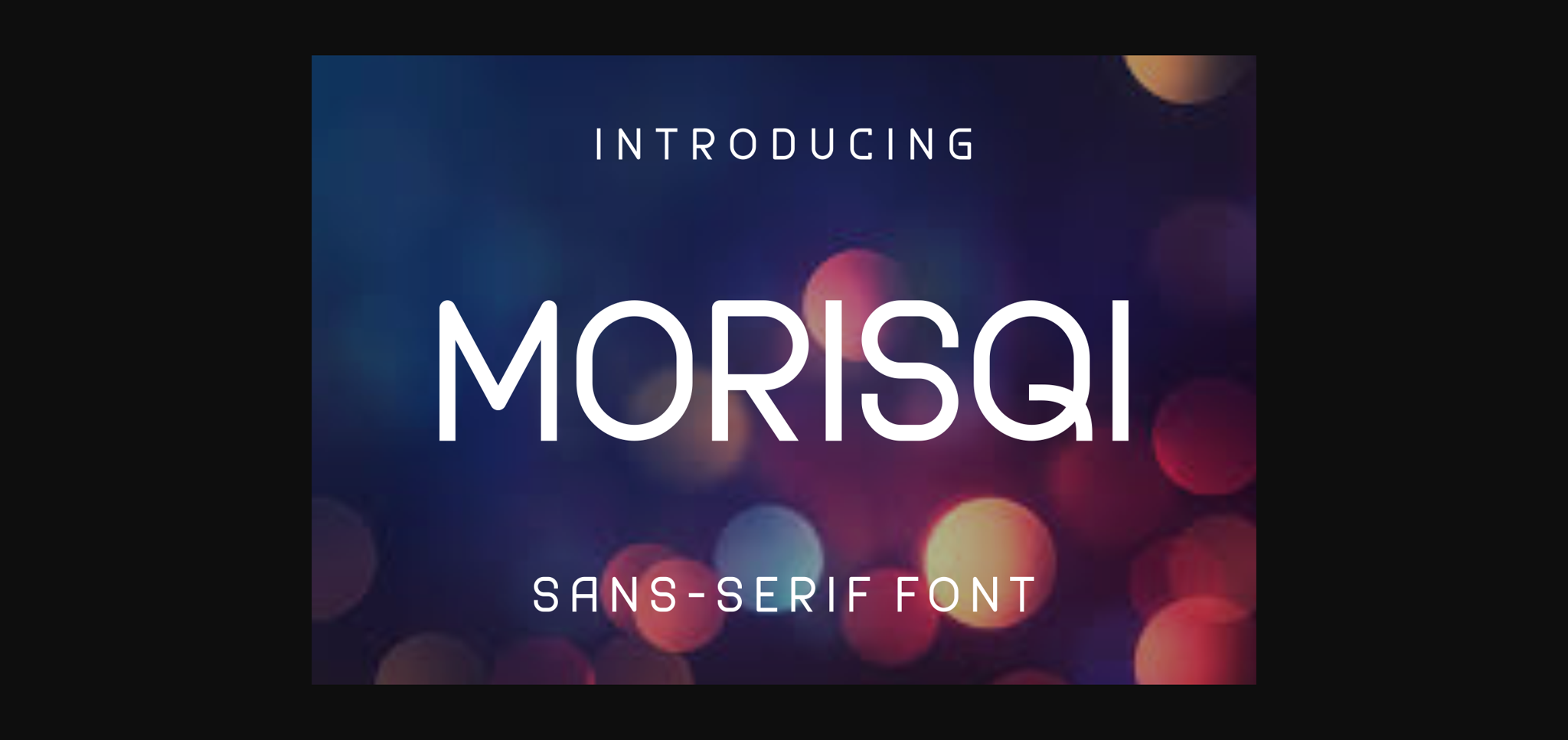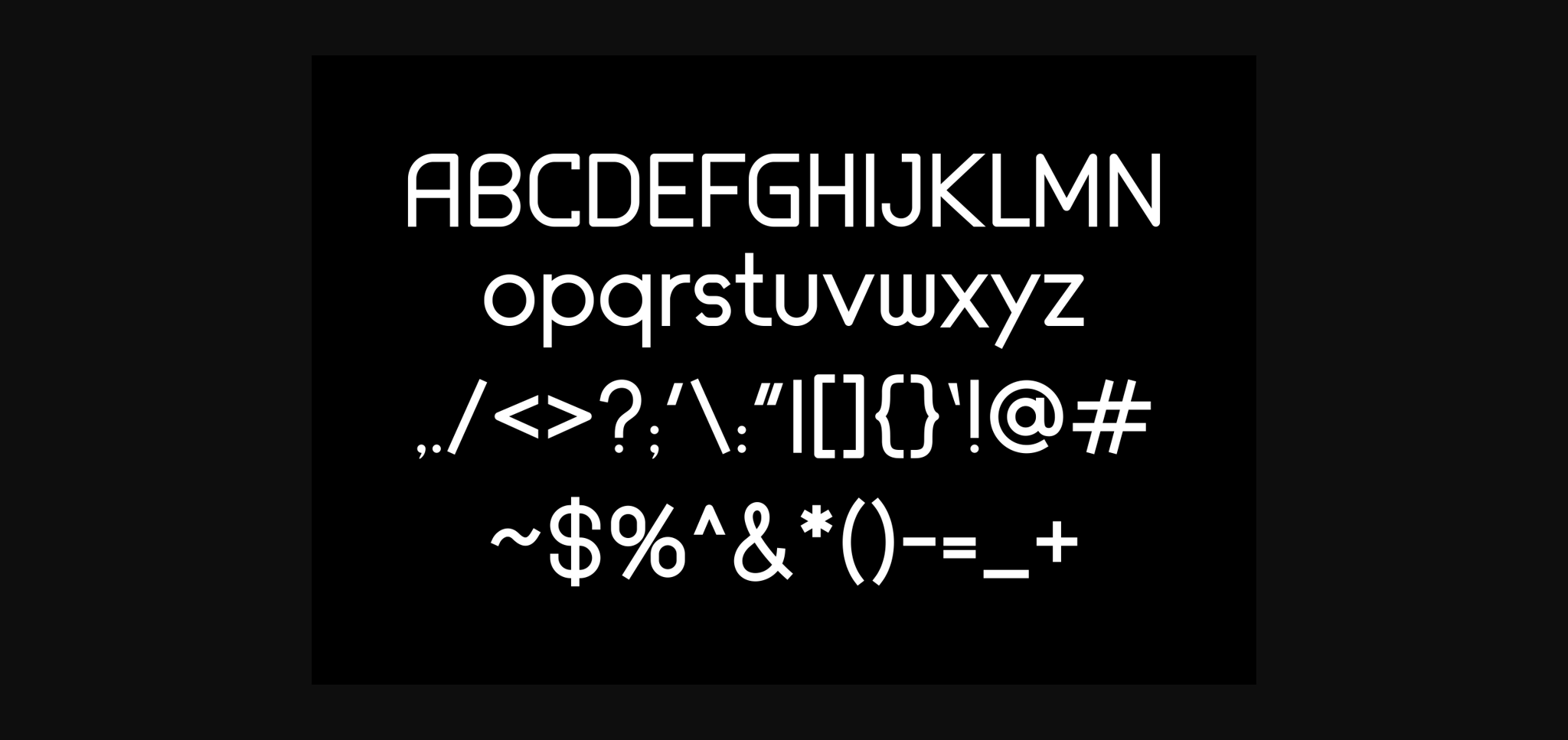
About Morisqi Font
Morisqi is a cool and unique sans serif font. Fall in love with its incredibly distinct and timeless style and use it to create spectacular designs!